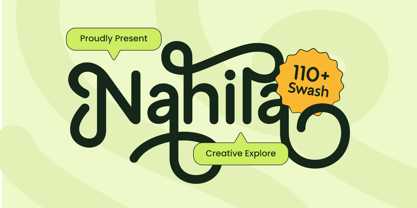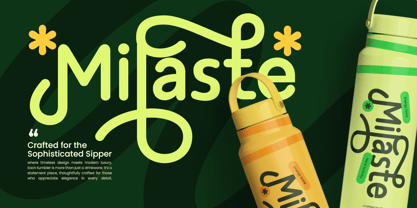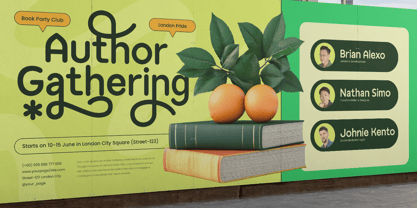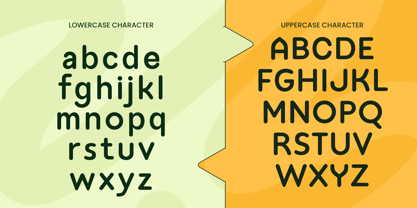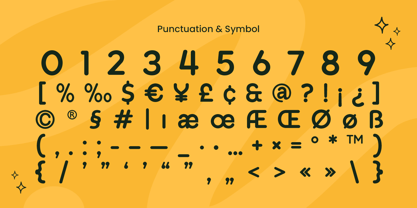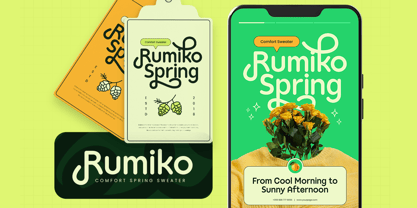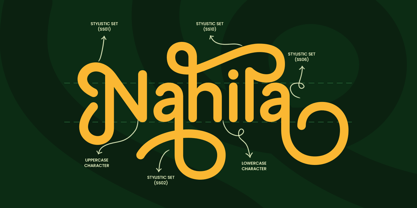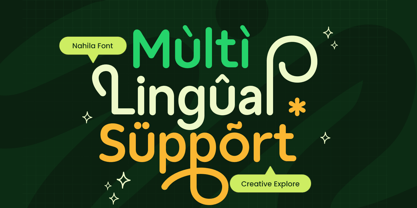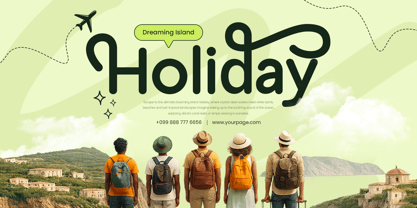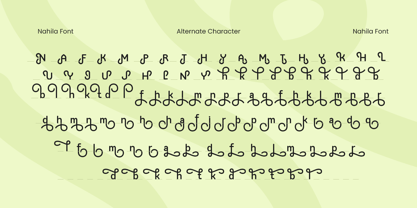
Nahila is a modern fancy rounded font that blends elegance with a soft and friendly tone. Designed to give your designs a cheerful and approachable look, it’s ideal for lifestyle brands, packaging, and social media graphics.
With clean curves and contemporary flair, Nahila offers versatility across digital and print media. Its unique personality makes it perfect for logos, titles, fashion branding, and promotional content that needs to feel both modern and warm.
Let Nahila enhance your creative direction with its polished simplicity and inviting style.
Nahila – Modern Fancy Rounded Font Features
Smooth and rounded letterforms
Perfect for branding, packaging, and digital content
Punctuation, numbers, and symbols included
Uppercase and lowercase letters
OpenType features for alternate styling
Multilingual support for Afrikaans, Albanian, Asu, Basque, Bemba, Bena, Breton, Chiga, Cornish, Dutch, English, Estonian, Filipino, Finnish, Friulian, Galician, German, Gusii, Indonesian, Irish, Italian, Kabuverdianu, Kalenjin, Kinyarwanda, Luo, Luxembourgish, Luyia, Machame, Makhuwa-Meetto, Makonde, Malagasy, Manx, Morisyen, North Ndebele, Nyankole, Oromo, Portuguese, Quechua, Romansh, Rombo, Rundi, Rwa, Samburu, Sango, Sangu, Scottish Gaelic, Sena, Shambala, Shona, Soga, Somali, Spanish, Swahili, Swedish, Swiss, and more.
Give your brand a soft, modern identity with Nahila – the perfect balance of fun and function. 🌈✨